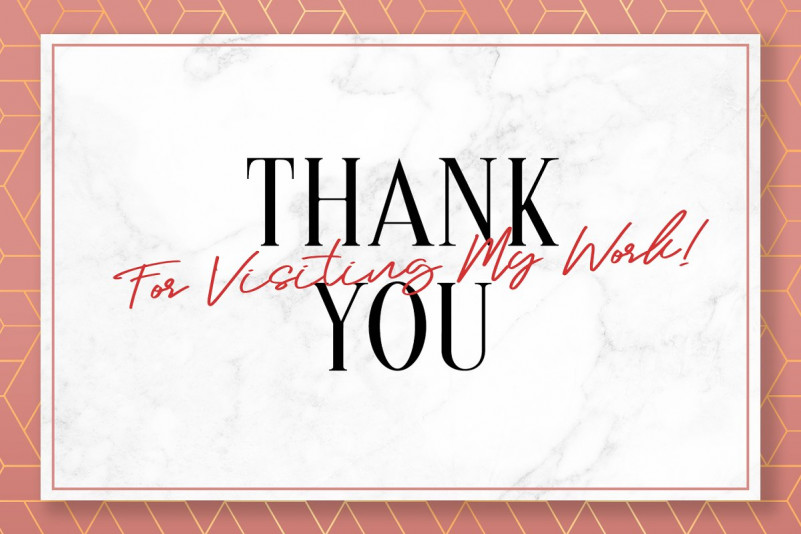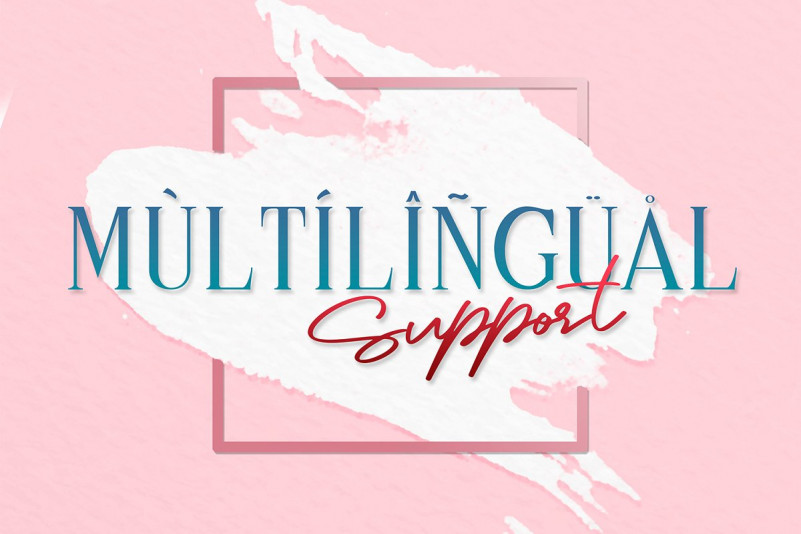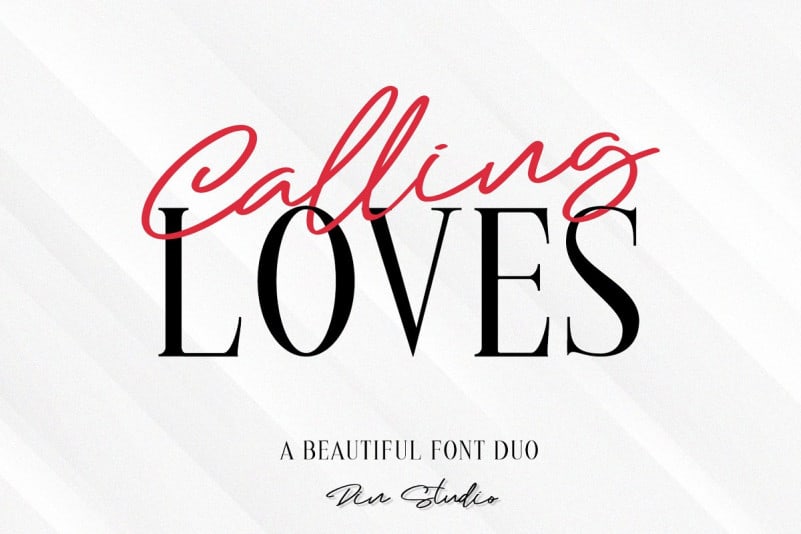
Calling Loves Font Duo
Calling Loves Font Duo – Free Demo
A dry handwritten script font is combined with the bold serif font with soft curves in every corner, which makes this font very suitable for your design needs. Introducing Calling Loves. It is designed and shared by Din Studio. Say hello to Calling Loves, Calling Loves is a beautiful font duo, designed with modern style. The combination of script and modern serif will make your design more beautiful. It’s suitable for branding, web design, personal signature (logo) and many other modern designs.